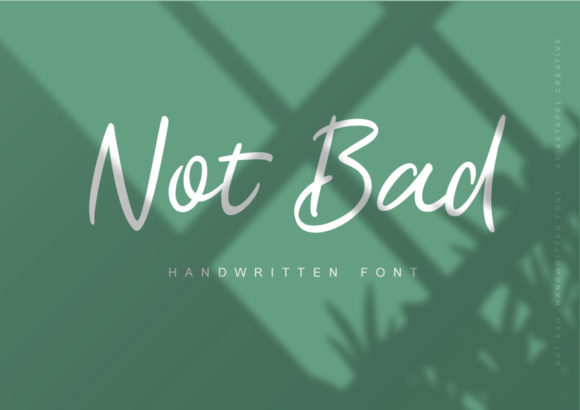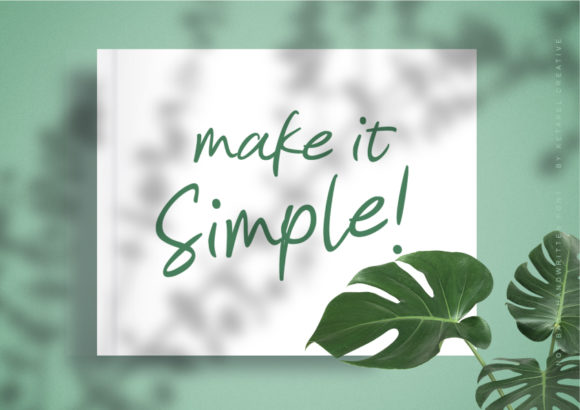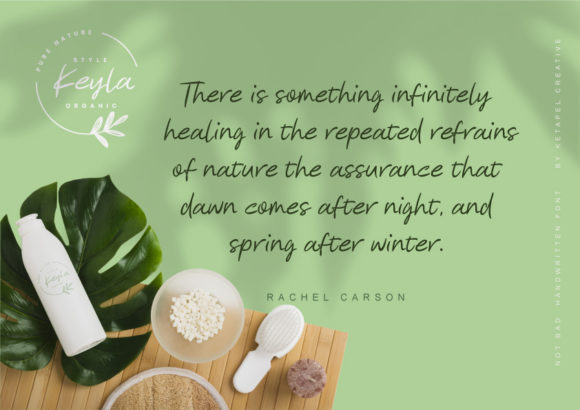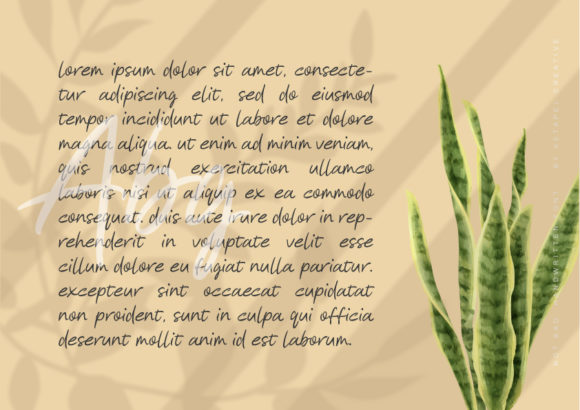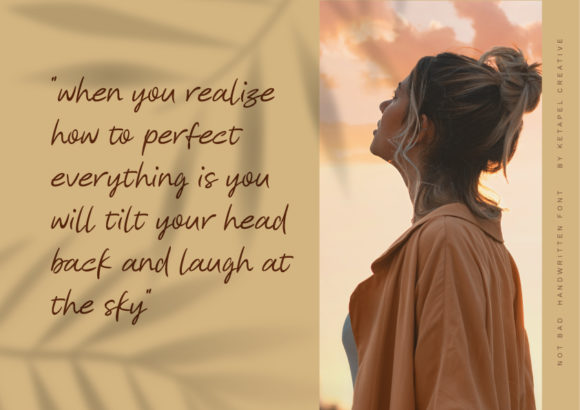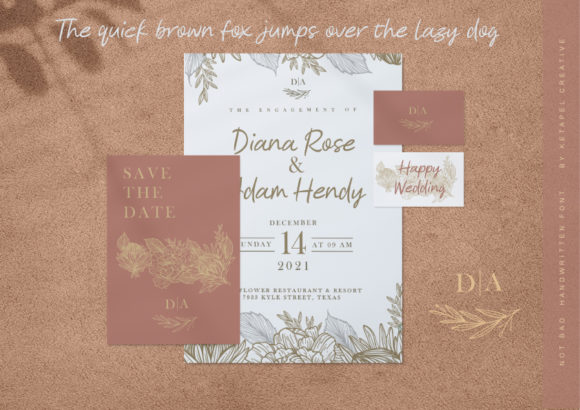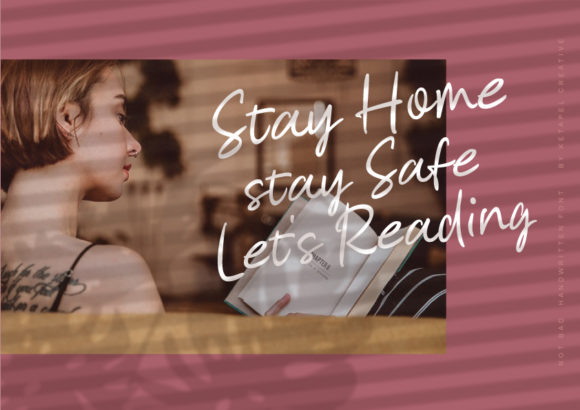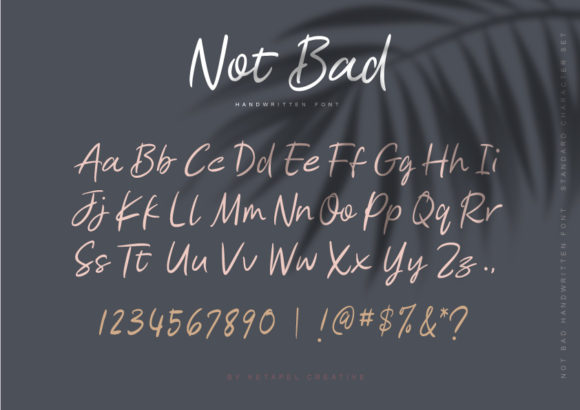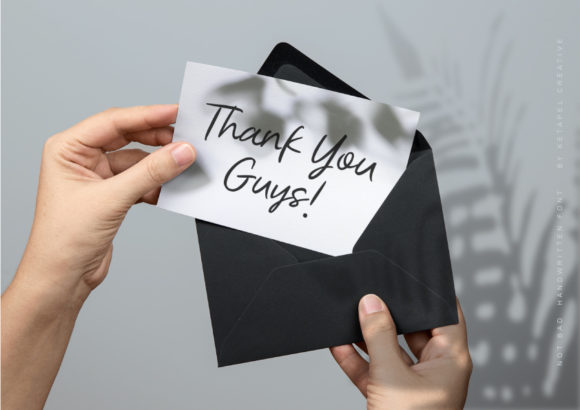
Not Bad Font
About Not Bad Font
Not Bad is relaxed and cursive handwritten font. It looks stunning on invitations, thank you cards, quotes, greeting cards, logos, business cards and every other design which needs a handwritten touch